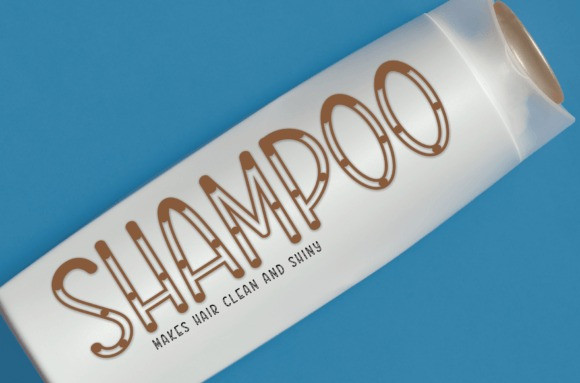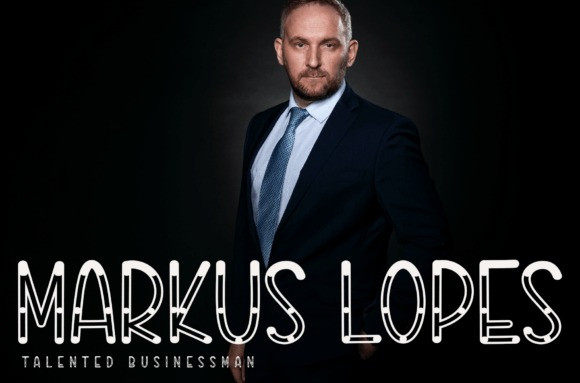
Comitmen Display Font
Comitmen Display Font is a sweet and friendly handwritten display font. Fresh and neat, this font is ideal for writing wedding invitations, cards, or any other design that might need a fun touch!